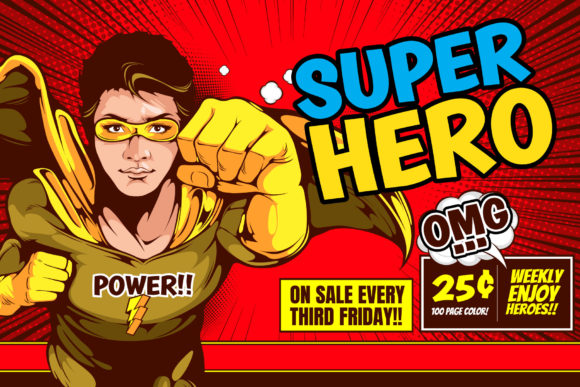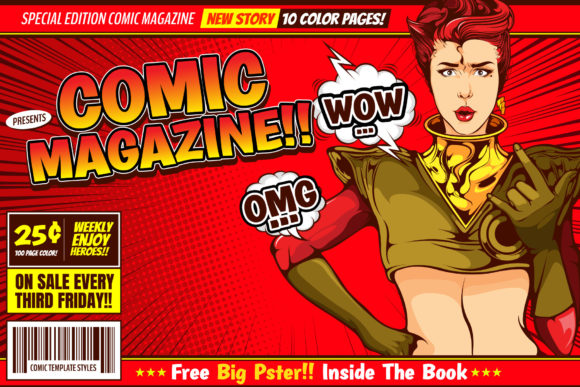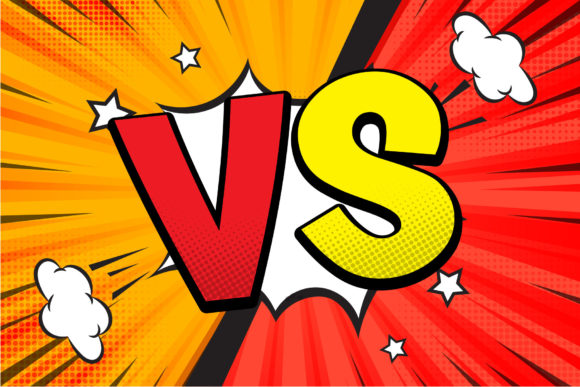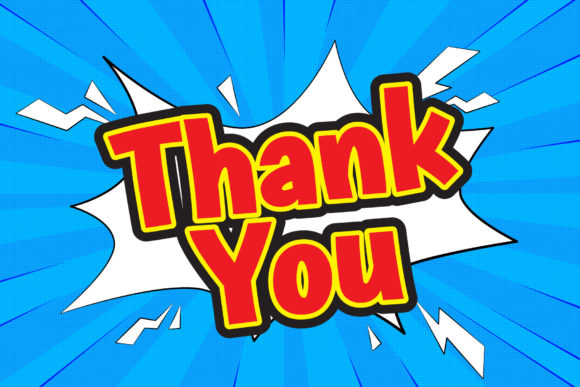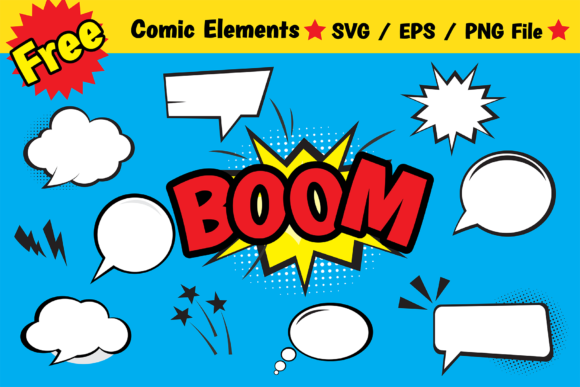
Introducing Comic Toon Font: The Ultimate Display Font for Dramatic Emphasis
Are you tired of using the same old fonts for your designs and crafts? Look no further! Comic Toon Font is here to add a cool and fun touch to your titles and words that need a more dramatic emphasis. This display font is perfect for designers, crafters, and anyone looking to add some excitement to their creations.
What is Comic Toon Font?
Comic Toon Font is a unique and playful display font that is designed to make a statement. Its bold and quirky style makes it ideal for titles, headings, and words that need to stand out. Whether you’re working on a graphic design project, crafting a DIY sign, or creating digital art, Comic Toon Font is the perfect addition to your font library.
Key Features of Comic Toon Font
- Cool and Fun Design: Comic Toon Font has a fun and playful design that is sure to grab attention.
- Dramatic Emphasis: This font is perfect for titles and words that need a more dramatic emphasis.
- Versatile: Comic Toon Font can be used on a wide range of projects, from graphic design to crafting and digital art.
- Easily Readable: Despite its bold and quirky style, Comic Toon Font is easily readable, making it perfect for titles and headings.
How to Use Comic Toon Font
Comic Toon Font is incredibly easy to use and can be incorporated into a variety of projects. Here are a few ideas to get you started:
- Graphic Design: Use Comic Toon Font to add a bold and playful touch to your graphic design projects, such as posters, flyers, and brochures.
- Crafting: Add a personal touch to your DIY crafts, such as signs, banners, and cards, with Comic Toon Font.
- Digital Art: Use Comic Toon Font to add a fun and quirky touch to your digital art, such as illustrations and animations.
Benefits of Using Comic Toon Font
So why should you choose Comic Toon Font for your next project? Here are just a few benefits:
- Adds Visual Interest: Comic Toon Font adds a bold and playful touch to your designs, making them more visually interesting.
- Enhances Creativity: This font is perfect for designers and crafters who want to add a creative and playful touch to their work.
- Versatile: Comic Toon Font can be used on a wide range of projects, making it a valuable addition to your font library.
Tips for Getting the Most Out of Comic Toon Font
Here are a few tips for getting the most out of Comic Toon Font:
- Experiment with Different Sizes: Try using Comic Toon Font in different sizes to add emphasis and create visual interest.
- Pair with Other Fonts: Pair Comic Toon Font with other fonts to create a unique and visually interesting design.
- Use on a Variety of Projects: Don’t be afraid to use Comic Toon Font on a variety of projects, from graphic design to crafting and digital art.
Comic Toon Font is a cool and fun display font that is perfect for designers, crafters, and anyone looking to add a bold and playful touch to their creations. With its dramatic emphasis and versatile design, this font is sure to become a valuable addition to your font library. So why wait? Download Comic Toon Font today and start adding a touch of fun and creativity to your designs!